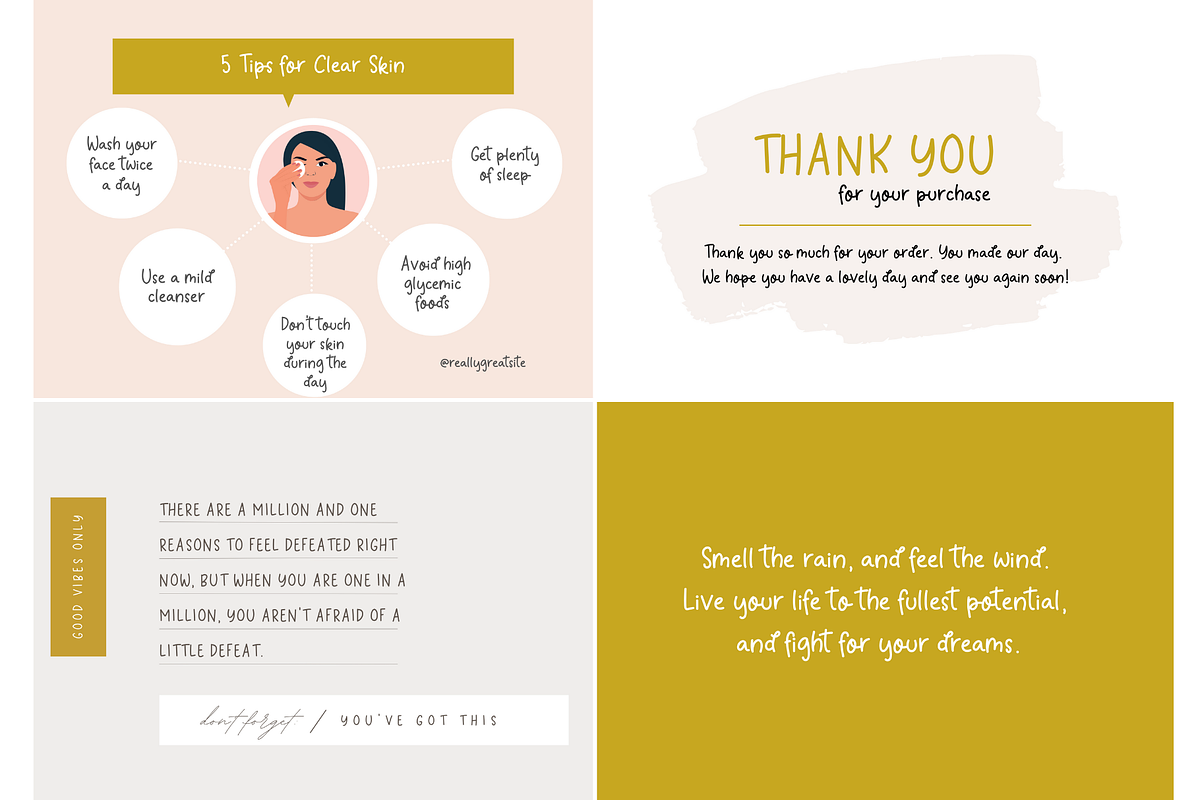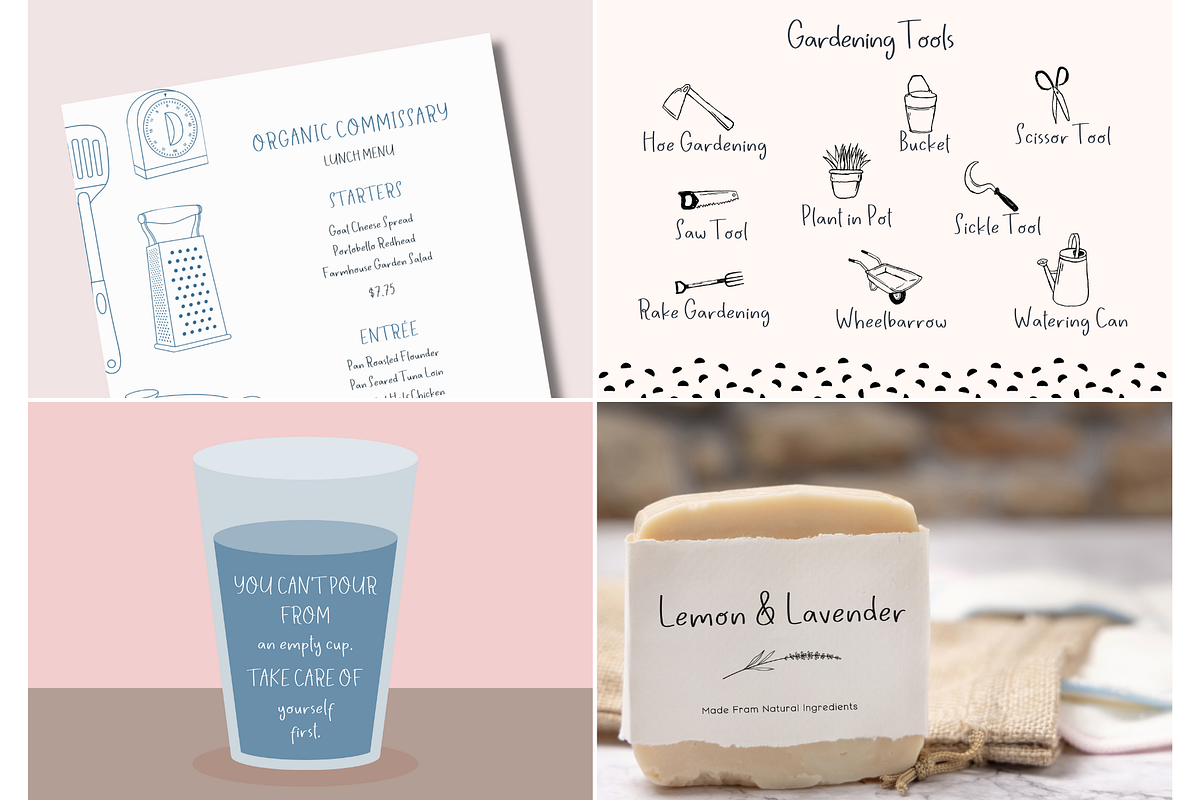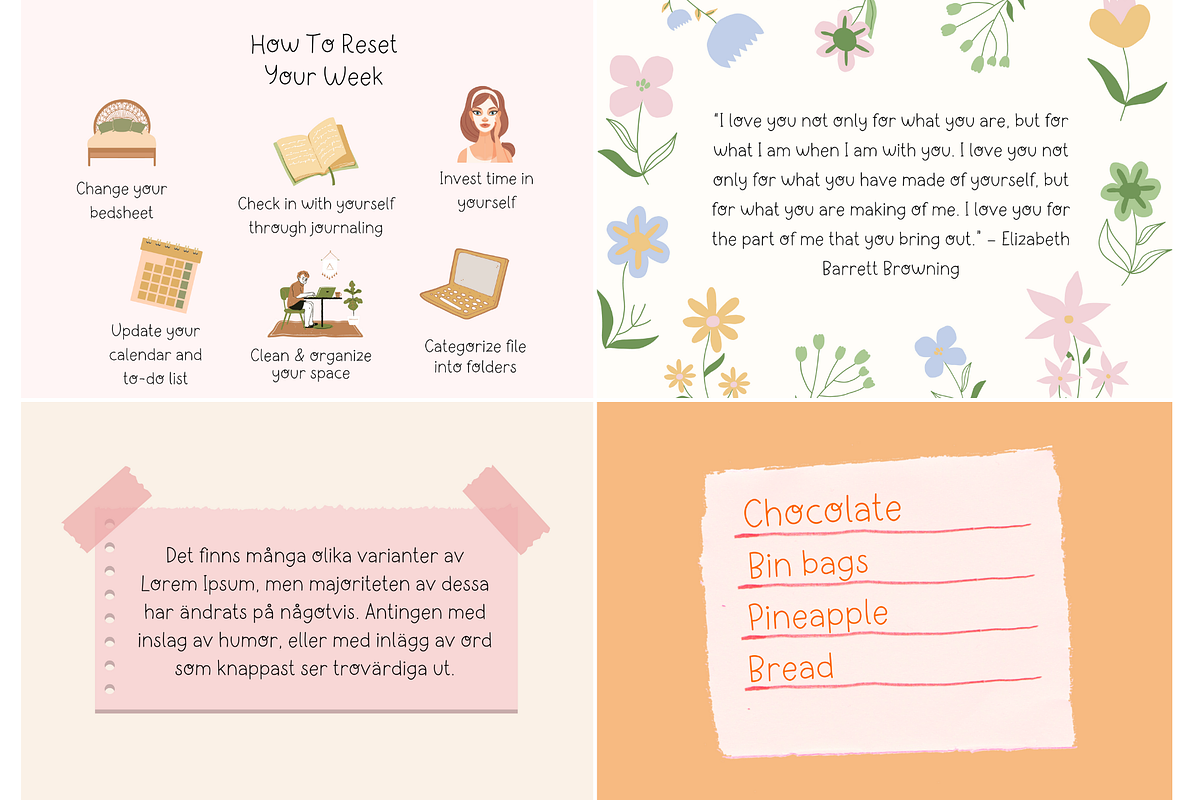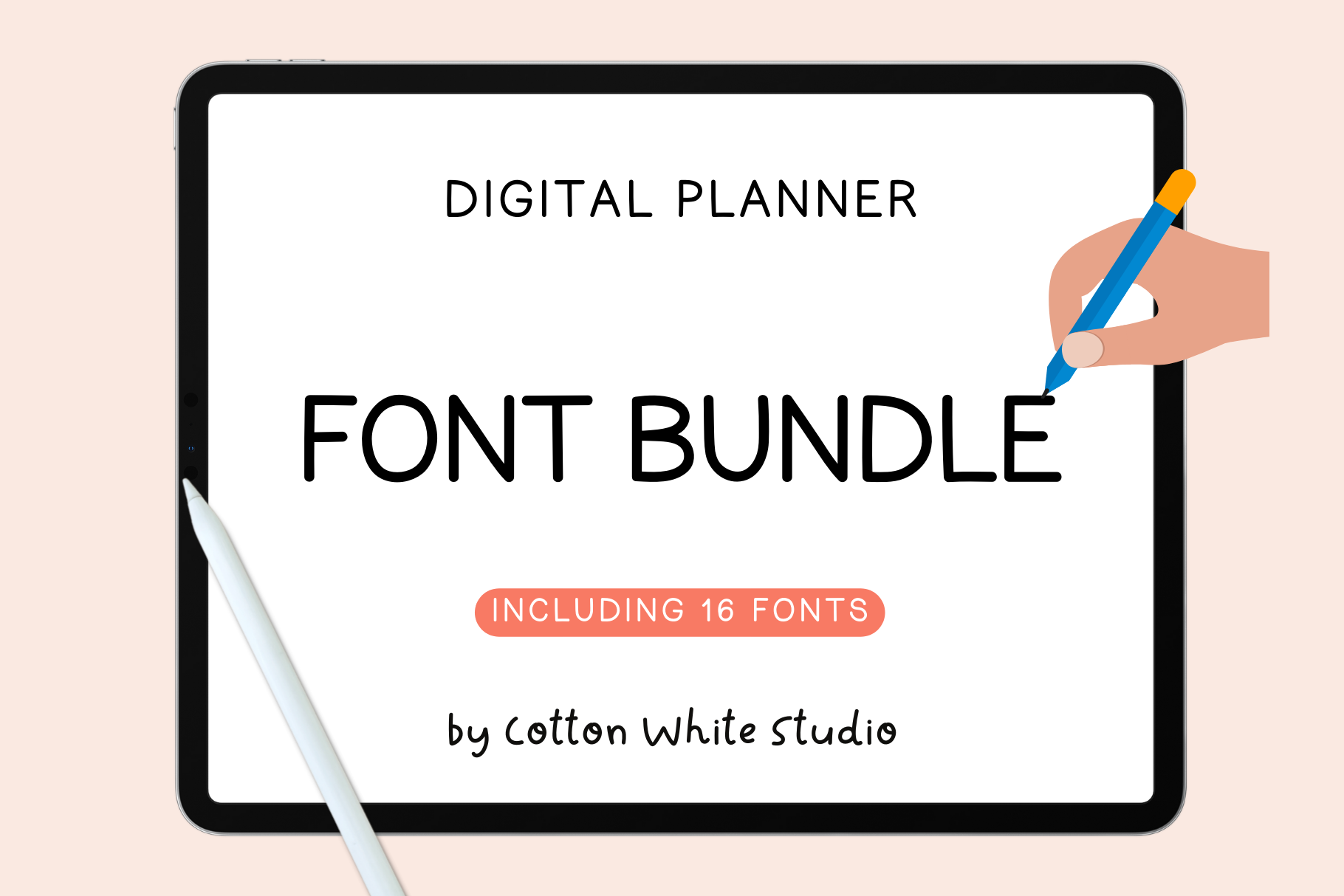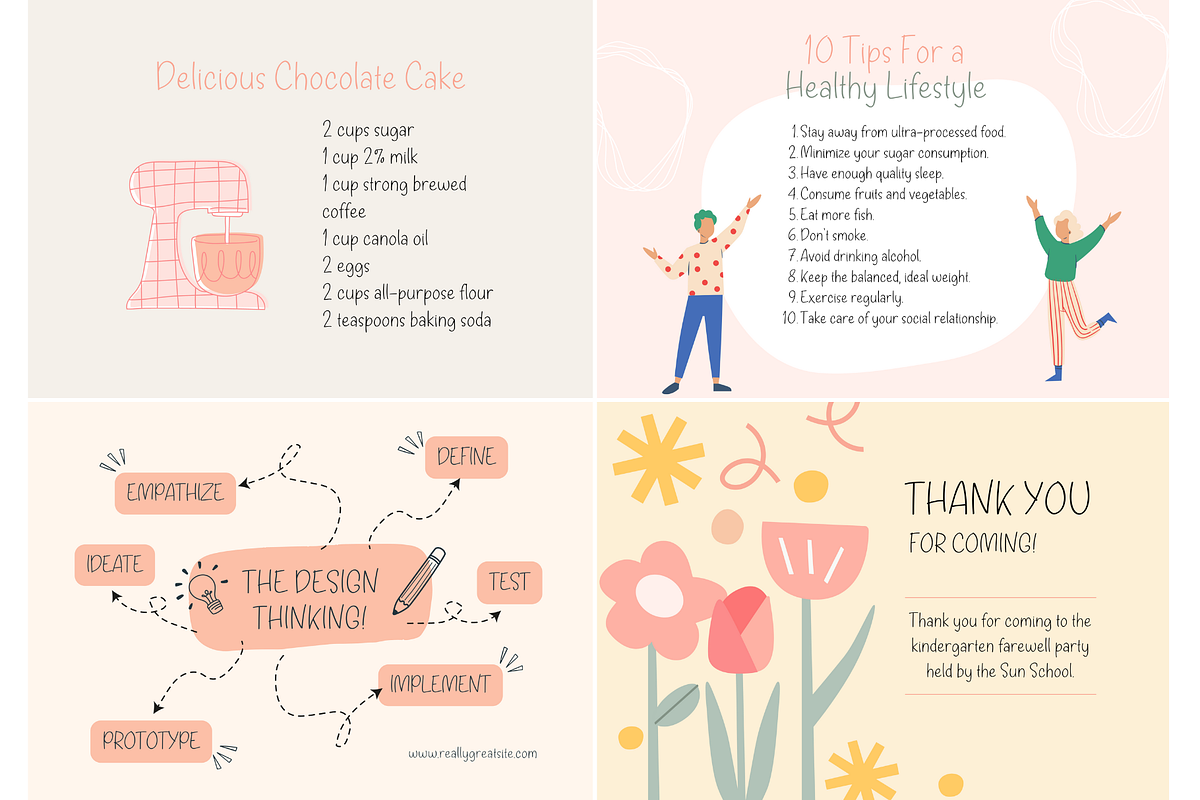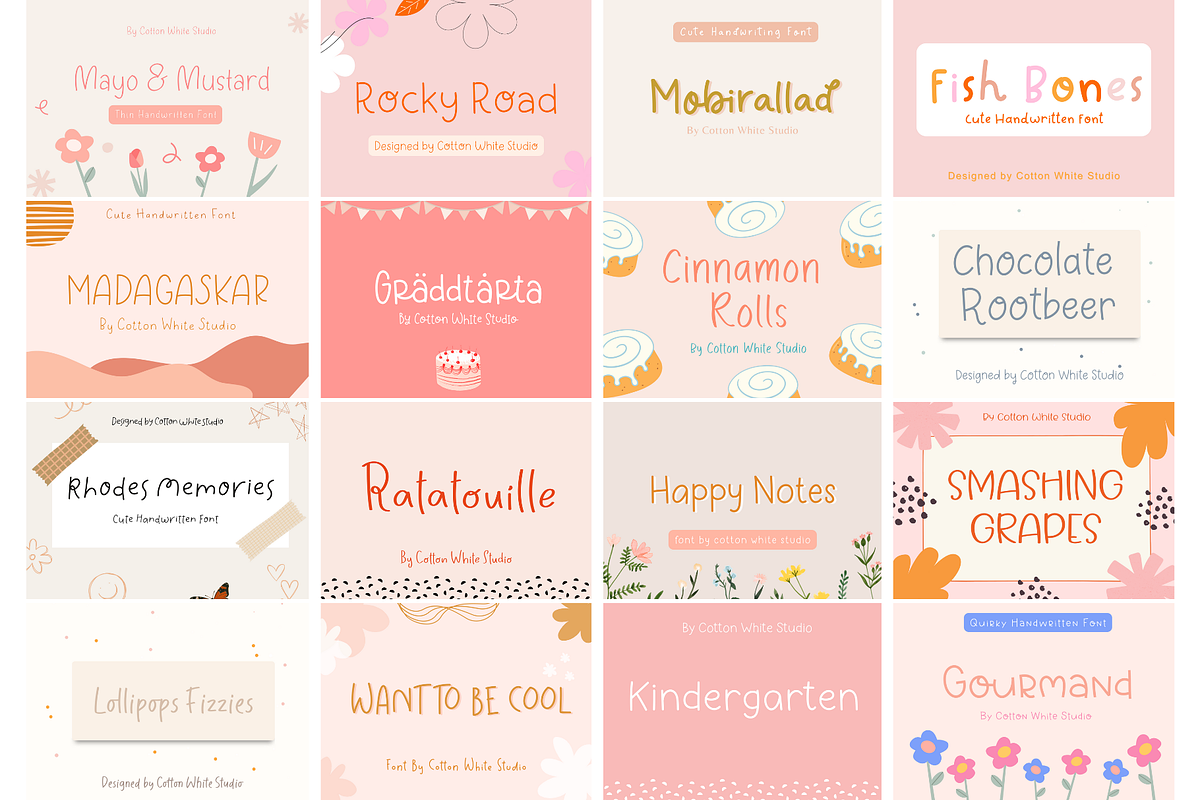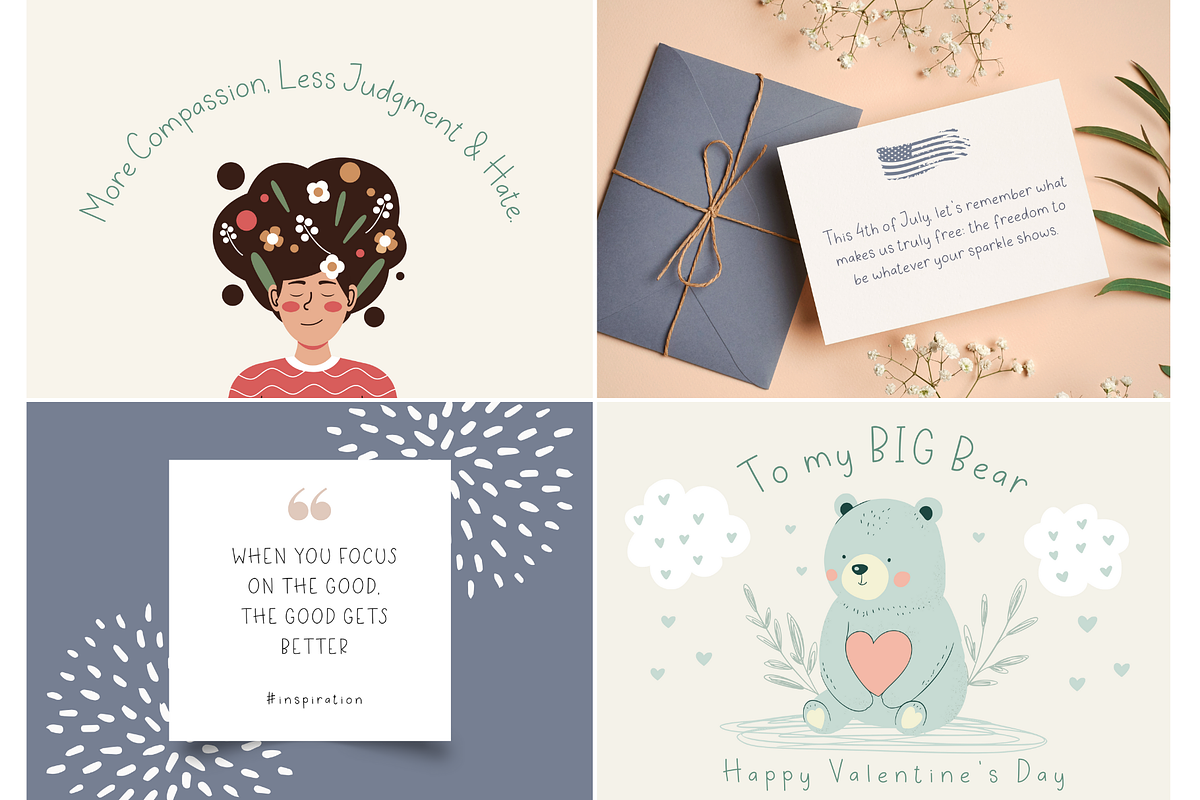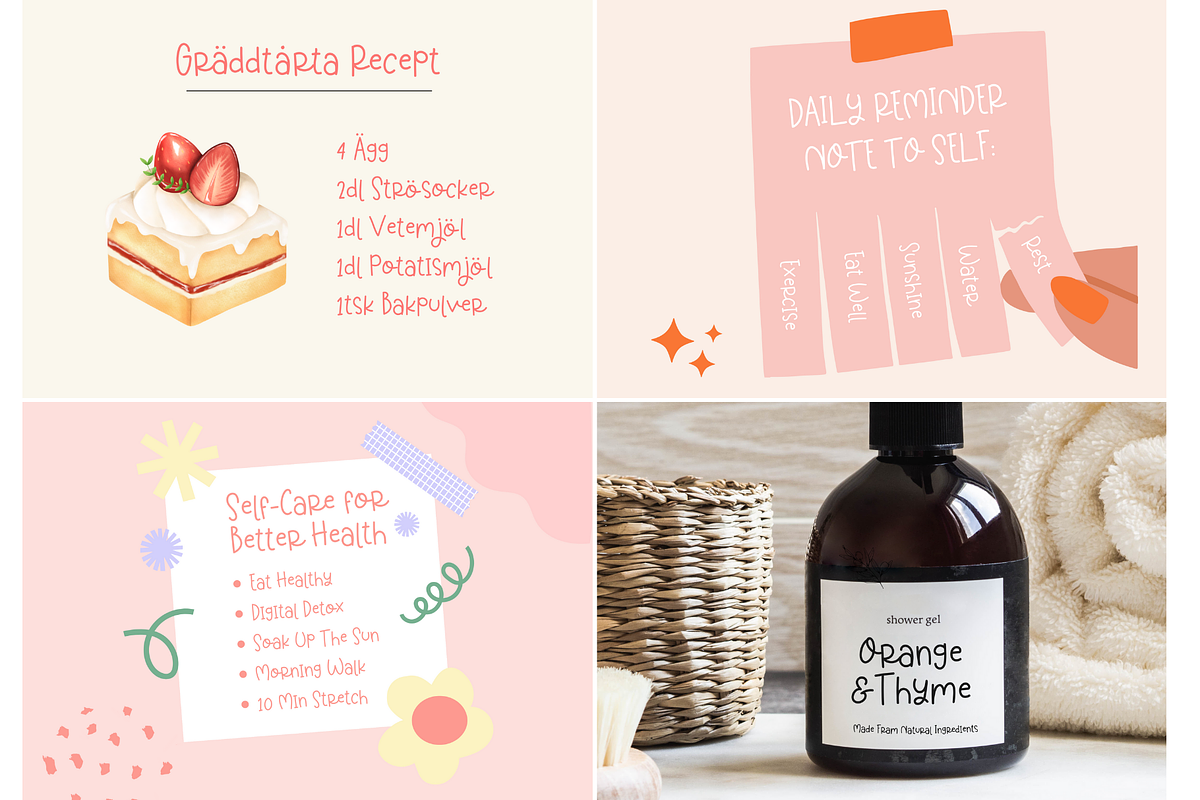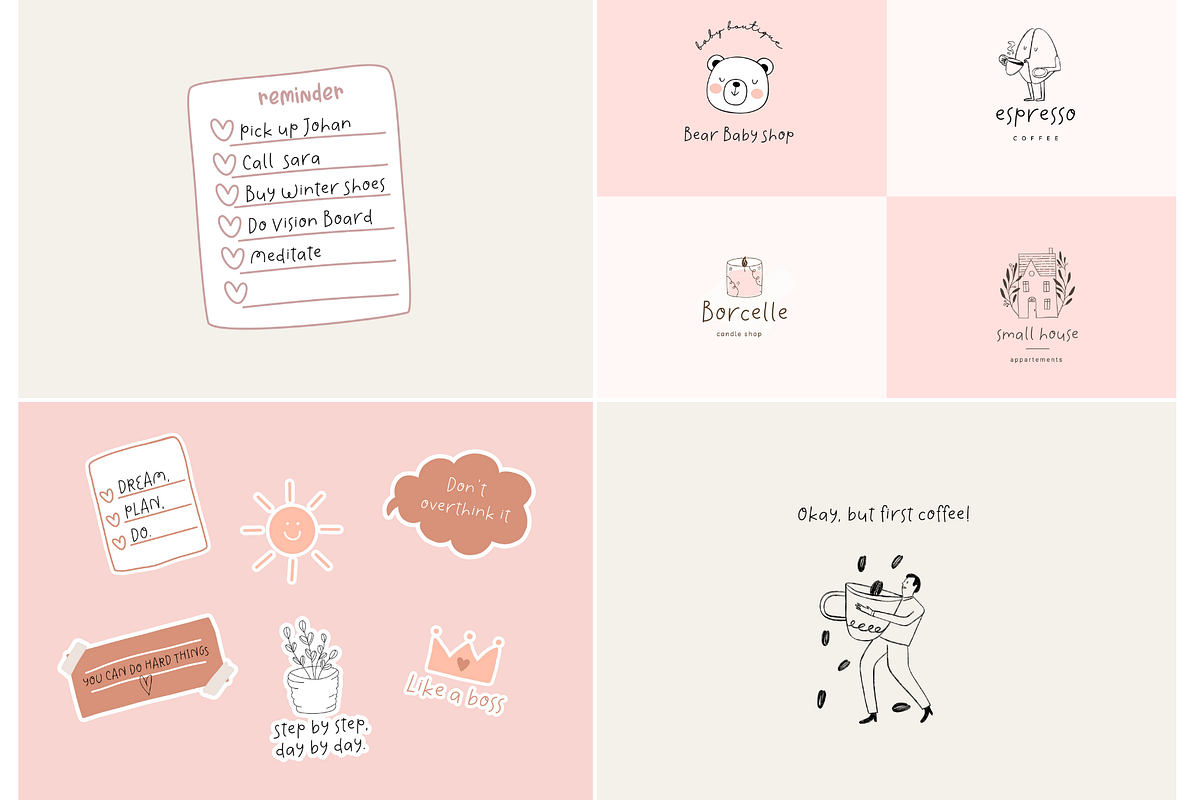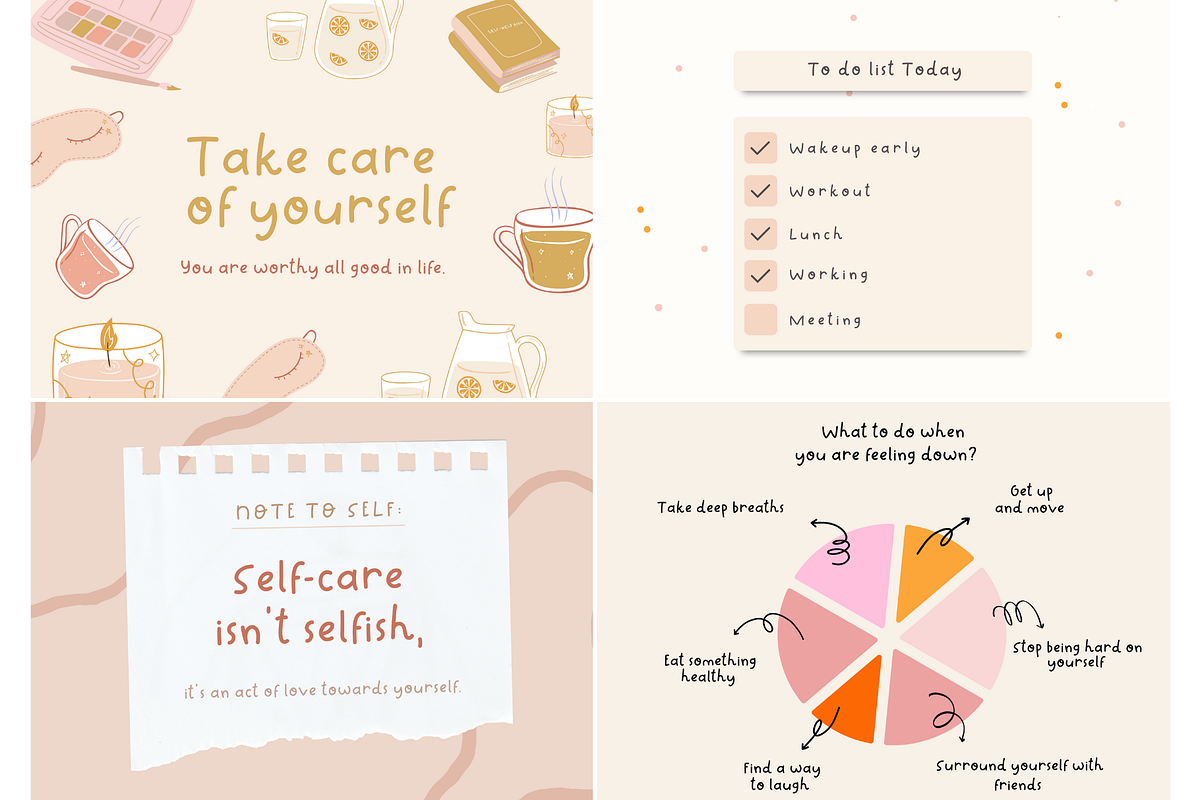
Digital Planner Font Bundle
A bundle of 16 fonts, perfect for digital notes and planners. All of the fonts can be used for other projects as well. Compatible with GoodNotes, Notability, Adobe, Microsoft Word, Cricut, Silhouette , Microsoft Word, as well as many more.